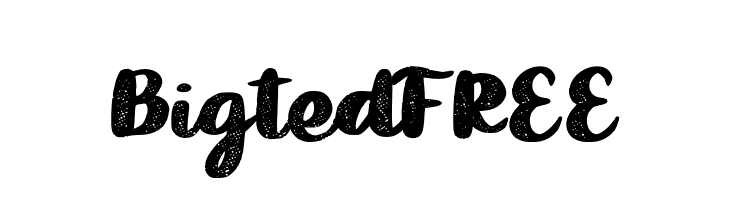
A bold, angular font with a geometric and industrial style.
A playful, casual handwritten font with rounded, smooth letterforms.
Condensed sans-serif font for Khmer script.
Casual, rounded handwritten font with a playful tone.
A graceful and ornate script font with elegant curves and decorative flourishes.
A playful, dynamic font with flowing, cursive-like strokes and a whimsical feel.
A dynamic and expressive handwritten font with fluid strokes.
A bold, decorative font with a dotted texture and vintage flair.
A lively and expressive script font with flowing, cursive letterforms.
A bold, playful font with exaggerated curves and a whimsical style.
设计师偏爱 ROCK STEADY Bold, Bandal Skies, Noto Sans Khmer UI Condensed, Autumn Children and SugarberryFREE,因为其造型干净、适用范围广—— 从品牌识别到落地页、海报都能胜任。